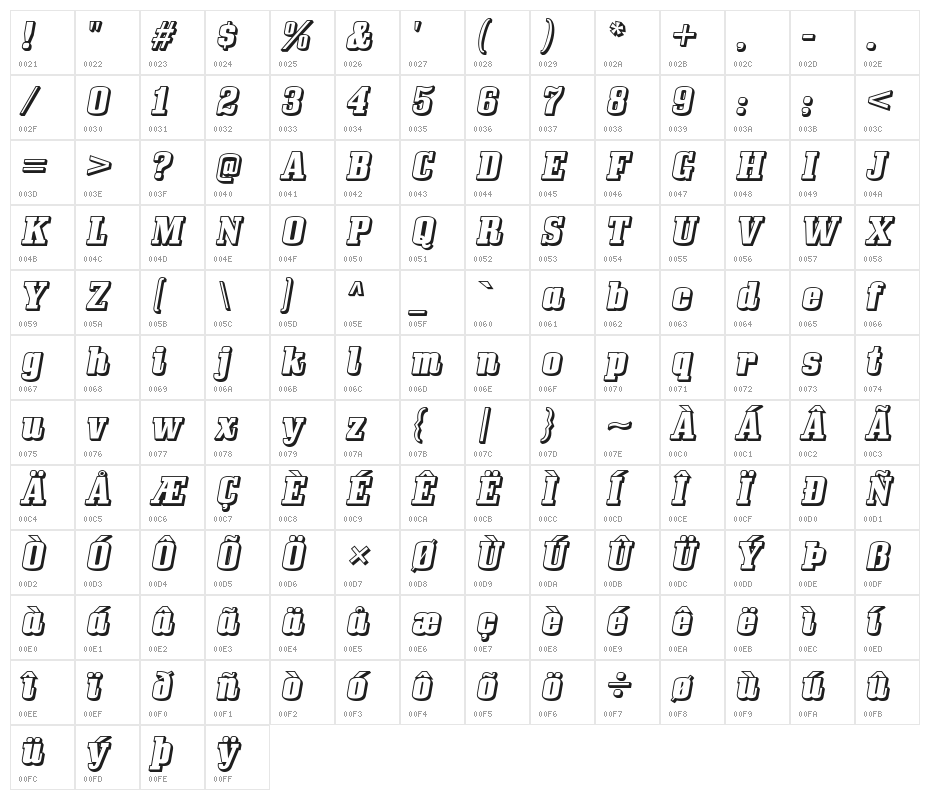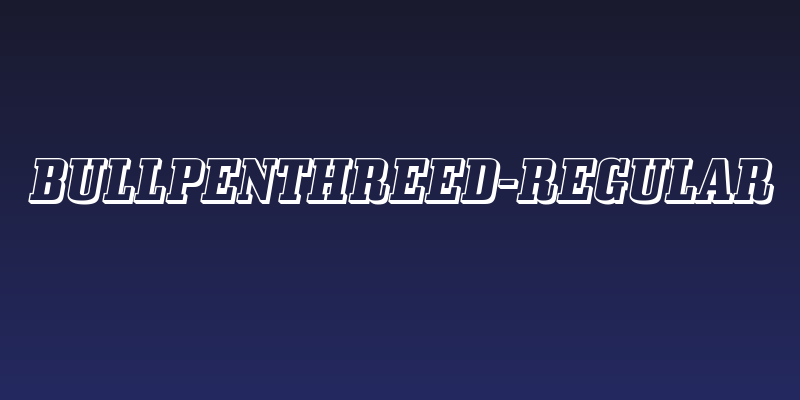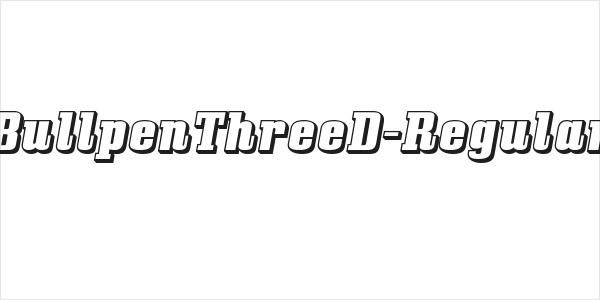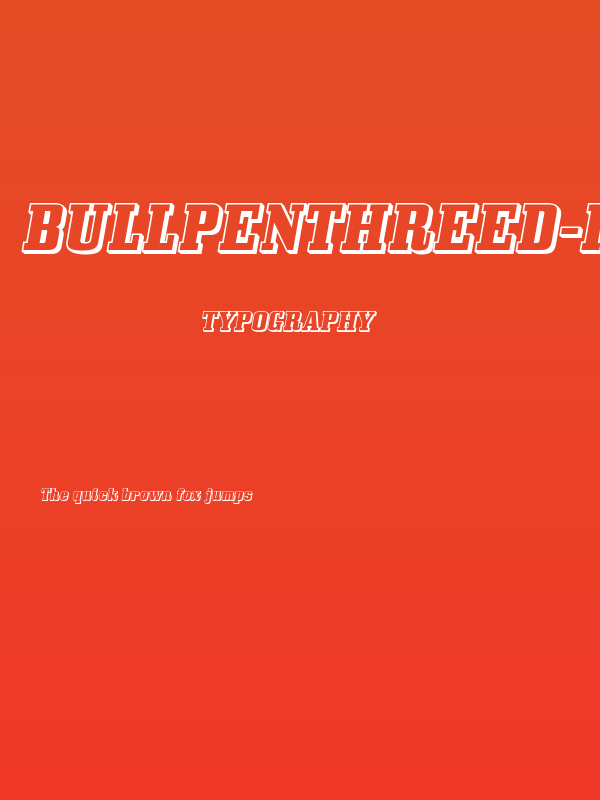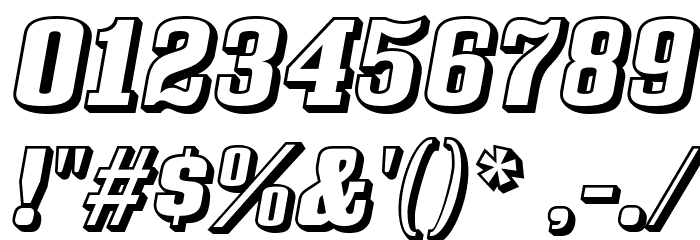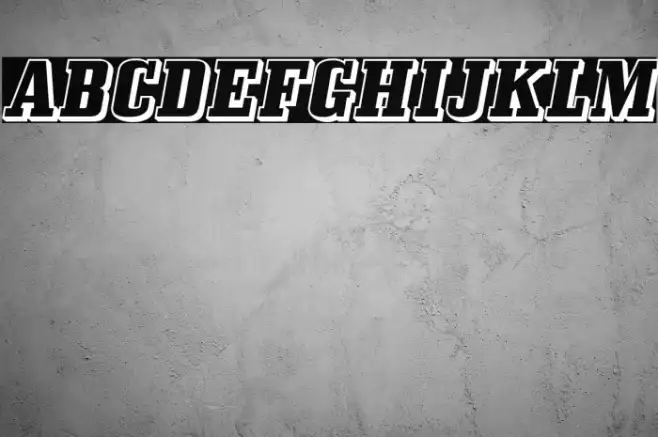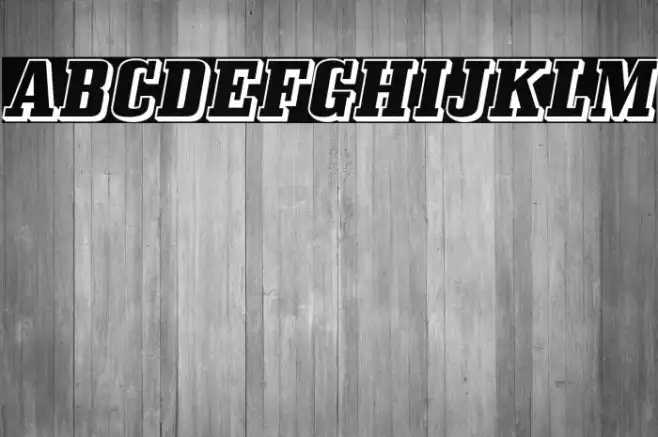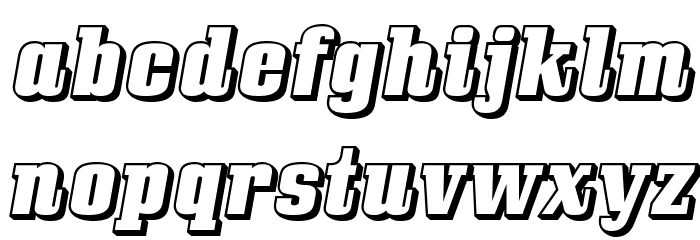
BullpenThreeD-Regular Font
BullpenThreeD-Regular Description
This font features a bold, three-dimensional style with a strong presence. Each character is outlined, giving it a shadow effect that enhances its depth and visual impact. The uppercase and lowercase letters maintain a consistent weight, while the numerals and special characters follow the same design principles, ensuring uniformity across all glyphs. The font's playful yet robust appearance makes it suitable for eye-catching designs. Its bold strokes and shadowing create a sense of movement and energy, making it ideal for projects that require a dynamic and engaging typeface.
| Proposed Projects | Ideal for posters, headlines, logos, and any design requiring a bold, impactful typeface. |